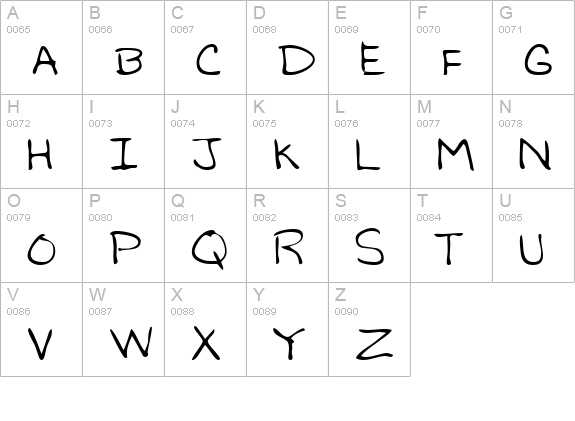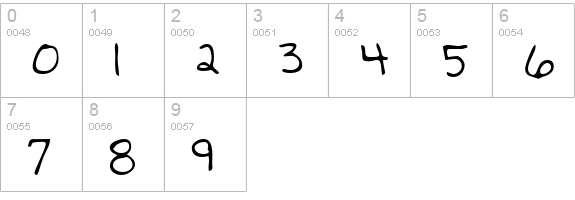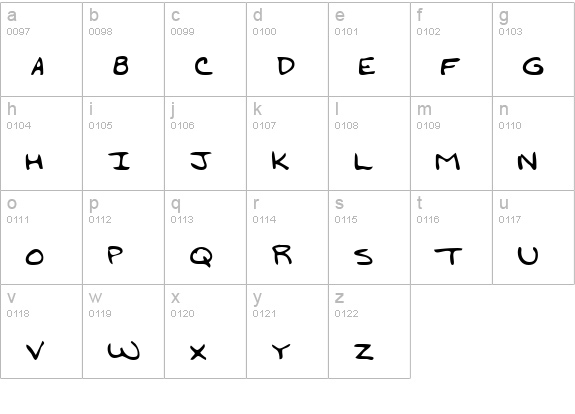
GradysHand Regular Font Details
GradysHand Regular is the standard, neutral variant in the GradysHand typeface family \xE2\x80\x94 well suited to general body text, paragraphs, and standard typographic work.
GradysHand Regular font is a charming and versatile typeface that brings a touch of elegance and sophistication to any design project. Its refined strokes and graceful curves make it perfect for a wide range of applications, from branding and packaging to invitations and logos. With a classic yet modern aesthetic, GradysHand Regular font exudes a sense of style and professionalism that is sure to make your designs stand out. Best of all, GradysHand Regular font is available for free download at FontsMarket.com, making it accessible to designers and creatives of all levels. Whether you're working on a personal project or a client's campaign, this font is a valuable addition to your typography toolkit. Embrace the beauty and versatility of GradysHand Regular font today and elevate your designs to new heights.